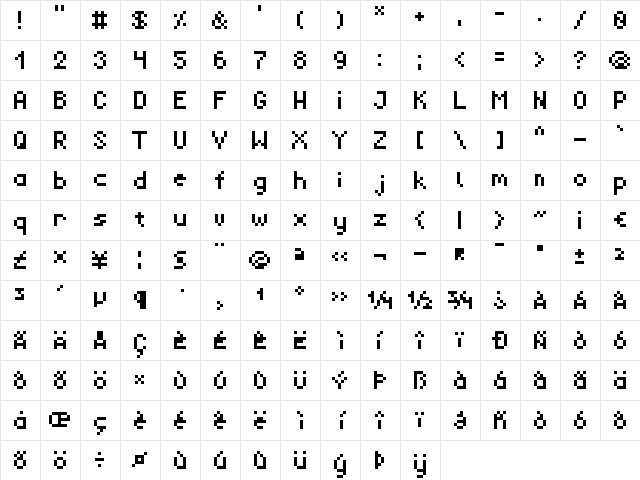
RevMiniPixel Regular
Design Context for RevMiniPixel Typeface
RevMiniPixel is rooted in pixel-grid construction, making it a natural fit for game UI, retro computing aesthetics, and digital nostalgia projects.
A natural choice for retro game titles, chiptune music branding, 8-bit UI, and digital nostalgia projects.
Pro Tip: Pair RevMiniPixel with flat colour palettes and simple geometric UI elements to reinforce its digital aesthetic.